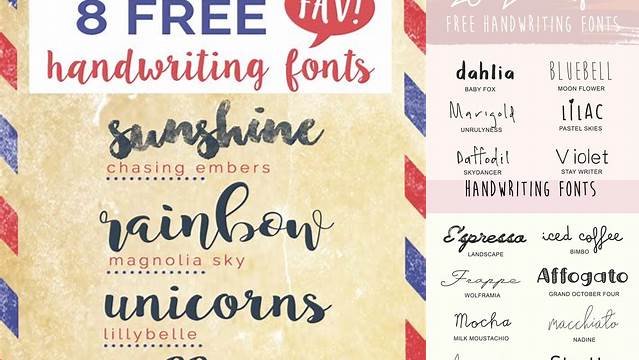
Free Handwriting Fonts: Add A Personal Touch To Your Designs
Hey guys! Are you on the hunt for free fonts that capture the authentic charm of handwriting? You've landed in the right place! In this guide, we'll explore a wide range of handwriting fonts that can add a personal and unique touch to your projects. Whether you're designing invitations, crafting social media graphics, or revamping your website's typography, the right font can make all the difference. We’ll delve into various styles, from elegant and cursive to playful and casual, ensuring you find the perfect match for your needs. So, let’s dive in and discover the wonderful world of free handwriting fonts!
Using handwriting fonts can be a fantastic way to inject personality and warmth into your designs. Unlike standard, digitized fonts, these mimic the natural flow and imperfections of human writing, making your text feel more approachable and relatable. Think about how a handwritten note instantly feels more personal than a typed-out email. Similarly, incorporating a handwriting font into your branding or marketing materials can create a sense of authenticity and connection with your audience. The key is to choose a font that aligns with your brand's voice and the specific message you want to convey. For instance, a delicate, script-like font might be perfect for wedding invitations or feminine brands, while a bolder, more casual font could be ideal for a blog or a children's book. We’ll also touch upon the technical aspects, such as licensing and readability, to help you make informed decisions. By the end of this guide, you'll be well-equipped to select and use free handwriting fonts effectively, enhancing your projects with a touch of human artistry.
Why Choose Handwriting Fonts?
So, why should you even bother with handwriting fonts in the first place? Well, the answer is simple: they bring a human element to your digital creations. In a world saturated with sleek, uniform typography, a handwritten font stands out by offering a touch of authenticity and personality. It's like adding a signature to your work, making it feel more personal and less generic. Think about it – when you receive a handwritten card, doesn’t it feel more special than a typed letter? The same principle applies to design. Whether you’re crafting a logo, designing a website, or creating social media graphics, a handwriting font can add a unique flair that sets you apart. They evoke a sense of intimacy and care, making your message more relatable and engaging. For businesses, this can translate into stronger connections with customers. For personal projects, it adds a heartfelt touch that resonates with your audience. Plus, with the vast array of free options available, there’s no reason not to experiment and find the perfect handwritten style for your project. Let’s explore some of the compelling reasons why these fonts are a fantastic choice for a variety of applications.
The charm of handwriting fonts lies in their ability to convey emotions and personality. Each stroke, curve, and slant tells a story, reflecting the individuality of the writer. This is particularly valuable in branding, where establishing a unique identity is crucial. A well-chosen handwritten font can communicate your brand's values and ethos more effectively than a standard typeface. For instance, a whimsical, childlike font might be perfect for a toy store, while an elegant, flowing script could suit a luxury brand. Beyond branding, these fonts are incredibly versatile for various design needs. They add a personal touch to invitations, greeting cards, and thank-you notes, making them feel more heartfelt and genuine. In digital spaces, handwriting fonts can enhance the visual appeal of websites, blogs, and social media posts, drawing attention and creating a memorable impression. Consider how a handwritten headline can make a blog post stand out in a crowded newsfeed or how a handwritten quote can add an artistic touch to an Instagram graphic. The key is to understand the nuances of different styles and choose one that aligns with your overall aesthetic and message.
Top Free Handwriting Fonts
Let's get to the exciting part: discovering some amazing free handwriting fonts! The world of typography is vast, but we've curated a list of top-notch options that you can use without spending a dime. We’ll cover a range of styles, from elegant scripts to playful, casual fonts, ensuring there’s something for every project. Remember, the best handwritten font is one that aligns with your brand or project's personality. So, let's explore these gems and see which ones resonate with you!
One standout free handwriting font is ”Great Vibes.” This elegant script font exudes sophistication and grace, making it perfect for wedding invitations, elegant branding, and upscale designs. Its flowing curves and delicate strokes add a touch of refinement, ideal for projects where you want to convey a sense of luxury and style. Another fantastic choice is **